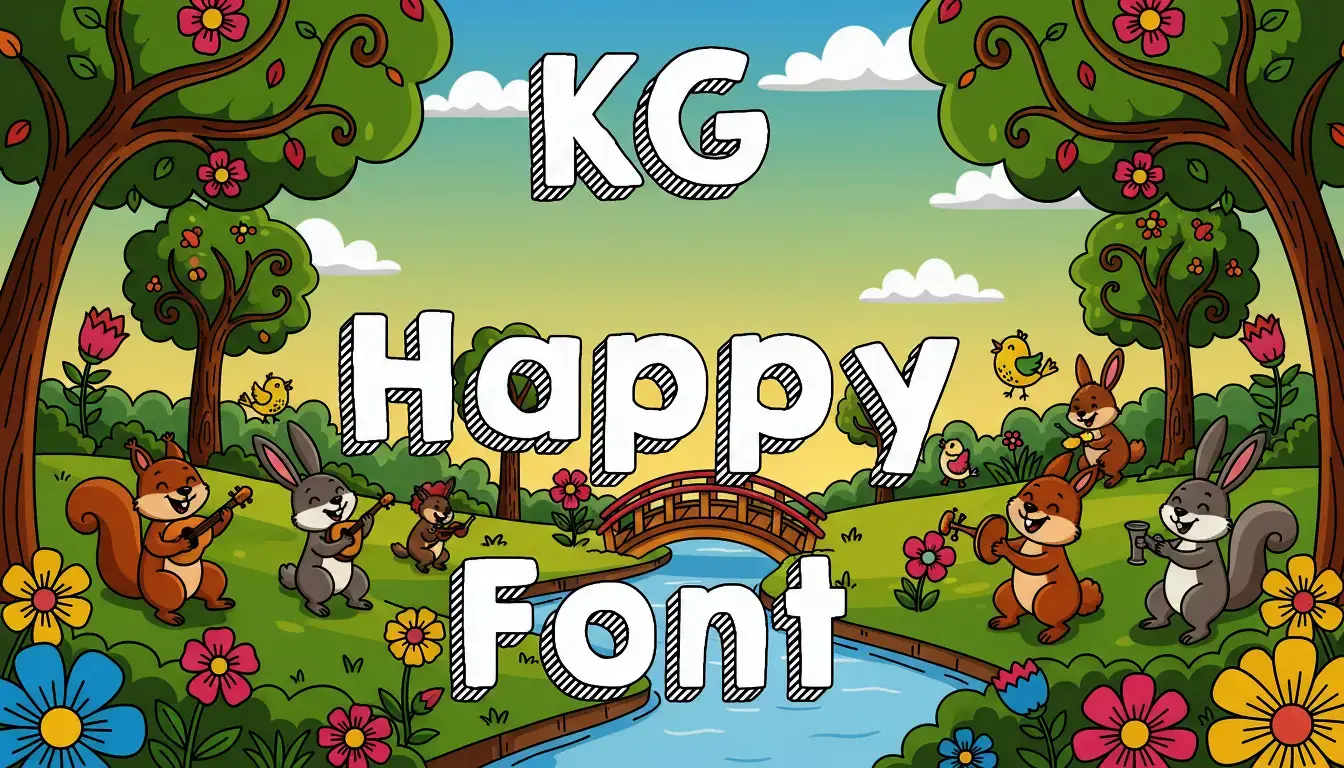
KG Happy Font
- Designer: Kimberly Geswein
- Category: Comic font
- Glyphs: 337
What You Can Type With KG Happy
KG Happy covers the full alphabet in upper and lowercase, plus all ten numbers, so you can set names, dates and prices without switching fonts. Common punctuation such as &, !, ? and @ is included as well. It also has the accented letters you need for Spanish, French, German, Portuguese and Italian.
Where KG Happy Works Best
KG Happy is a natural fit for comic strips, speech bubbles and playful headings. Cartoon fonts are great for short, fun lines. If you place it over a busy photo, add a thick outline or a drop shadow so it stays readable.
Does KG Happy support accented letters?
Yes. KG Happy includes the accented letters needed for Spanish, French, German, Portuguese and Italian, so it works for more than just English.